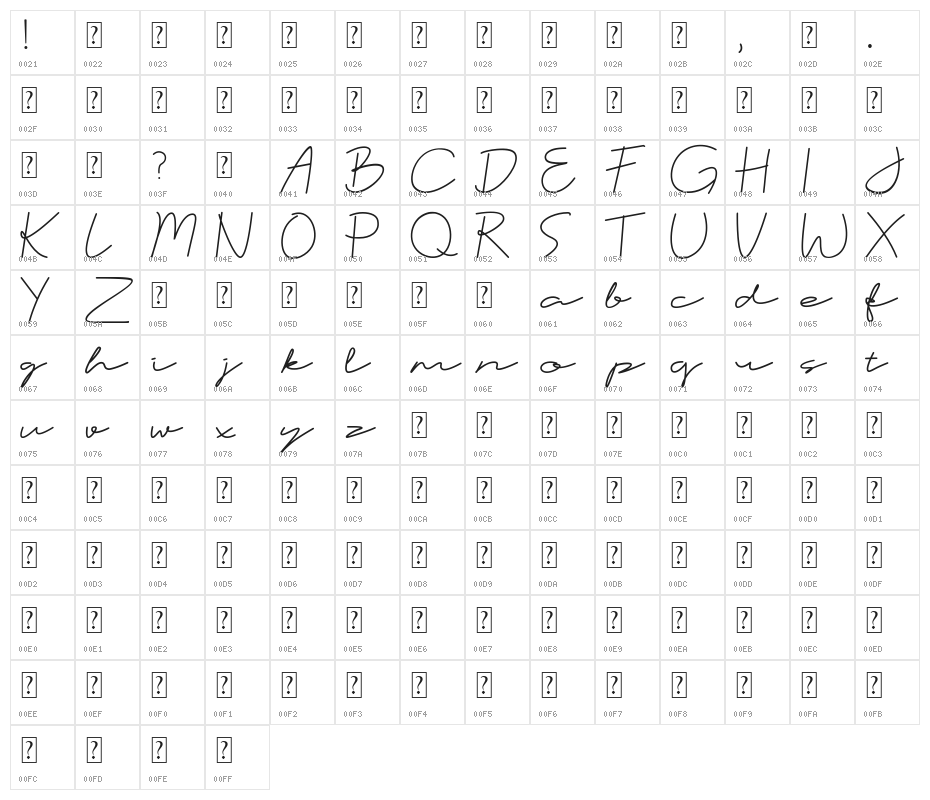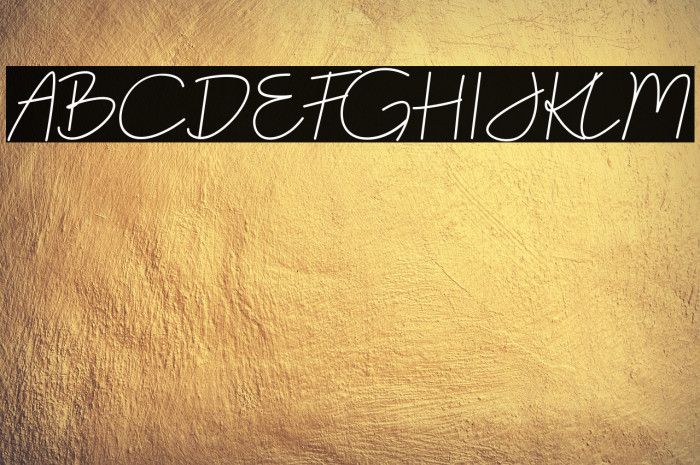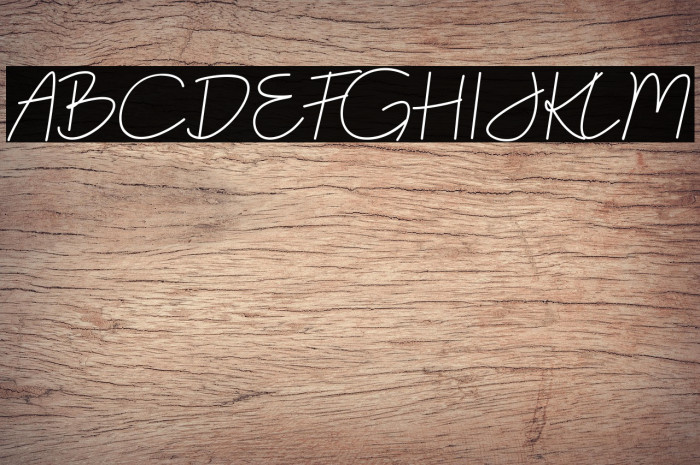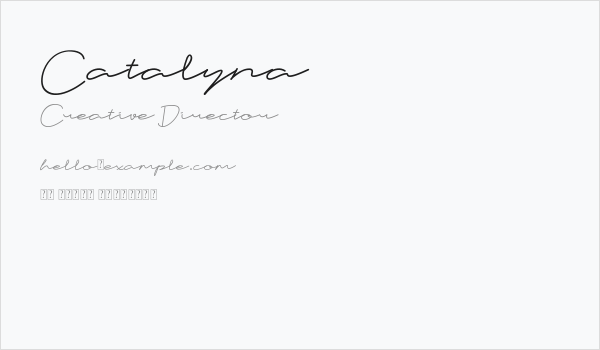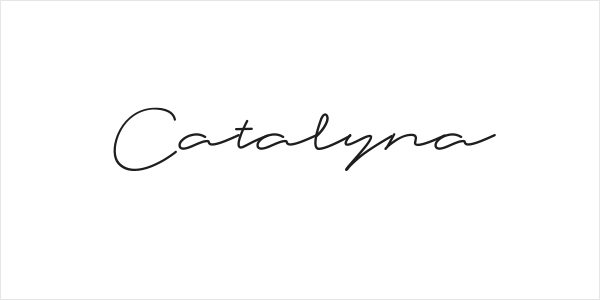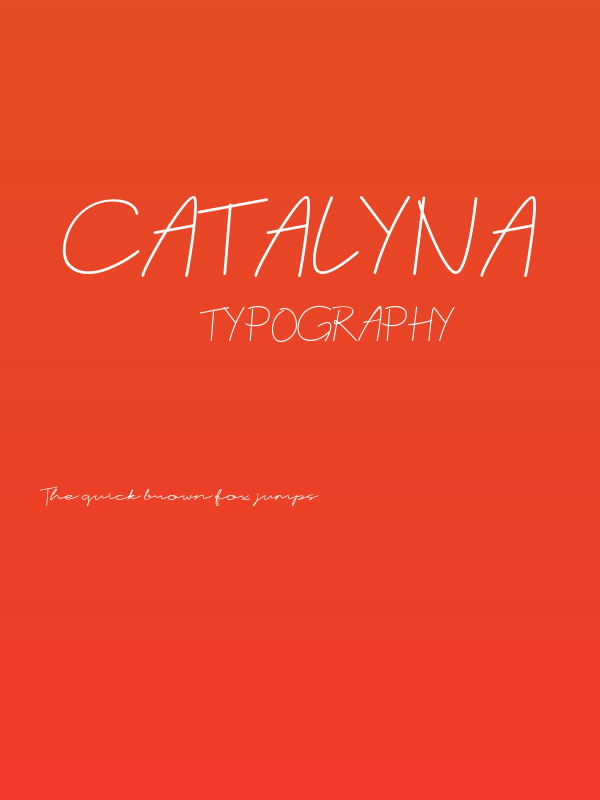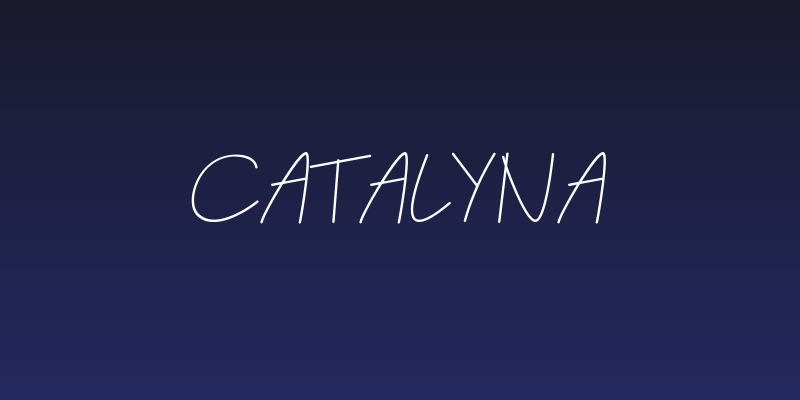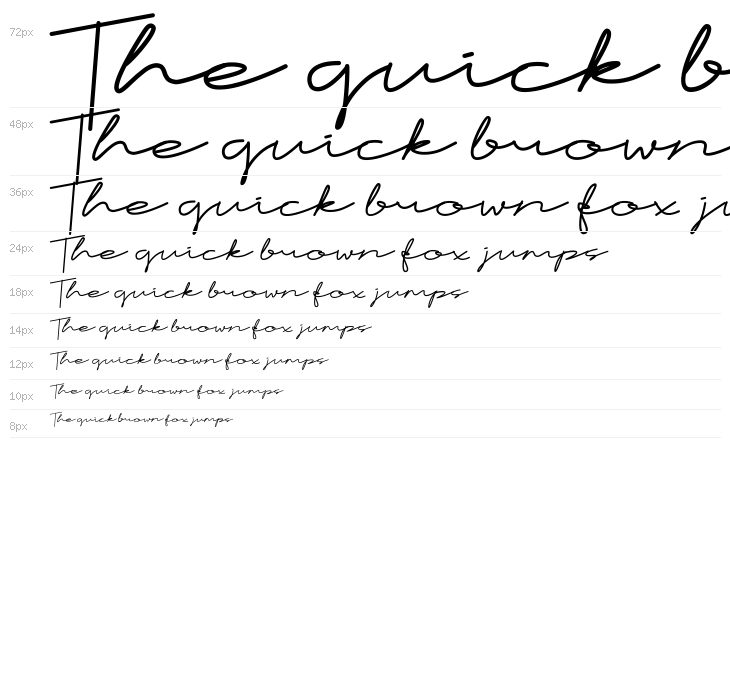
Catalyna Font
Catalyna Description
This elegant script font features a fluid, handwritten style that exudes sophistication and grace. The uppercase letters are tall and slender, with smooth curves and a slight slant, giving them a dynamic and lively appearance. The lowercase characters maintain a consistent flow, with delicate loops and connections that enhance the font's cursive nature. The overall design is airy and light, with a moderate contrast in stroke thickness that adds to its refined aesthetic. This font is perfect for projects that require a personal touch or a sense of elegance.
| Overall Style | Elegant |
| Use Case | Logos, Invitations, Personal Branding |
| Proposed Projects | Ideal for wedding invitations, greeting cards, personal branding, and elegant packaging. |